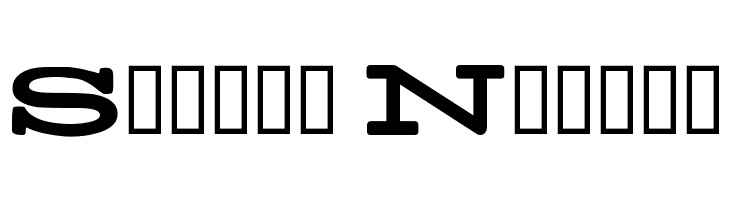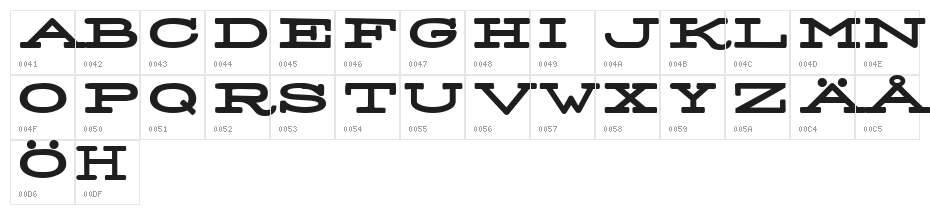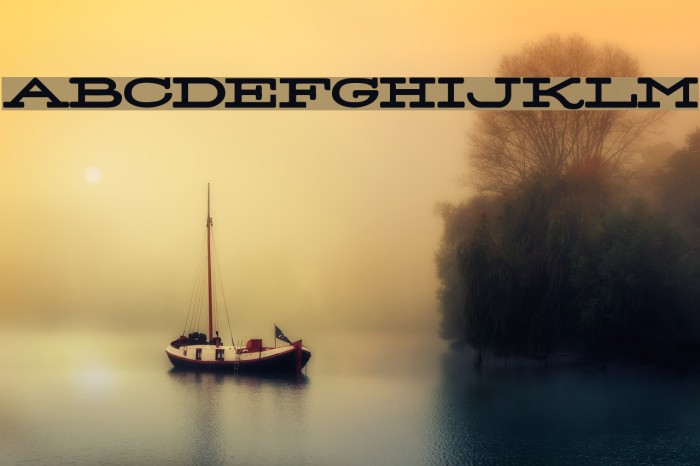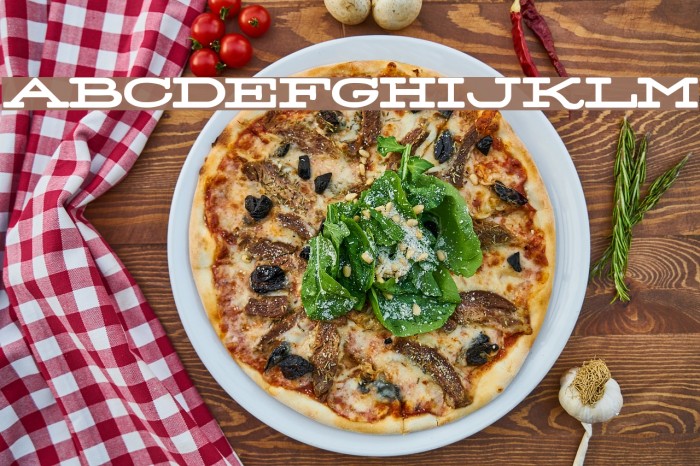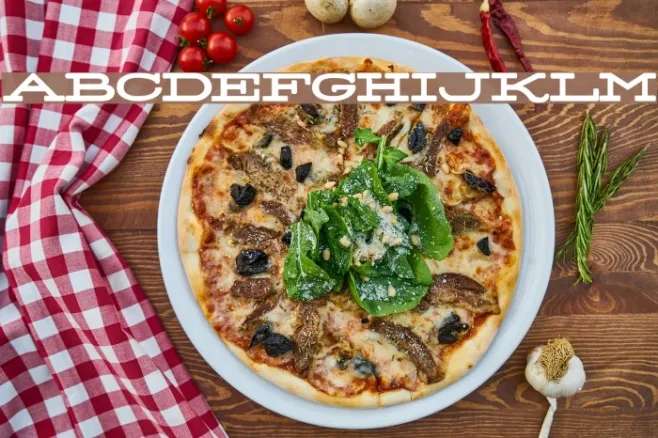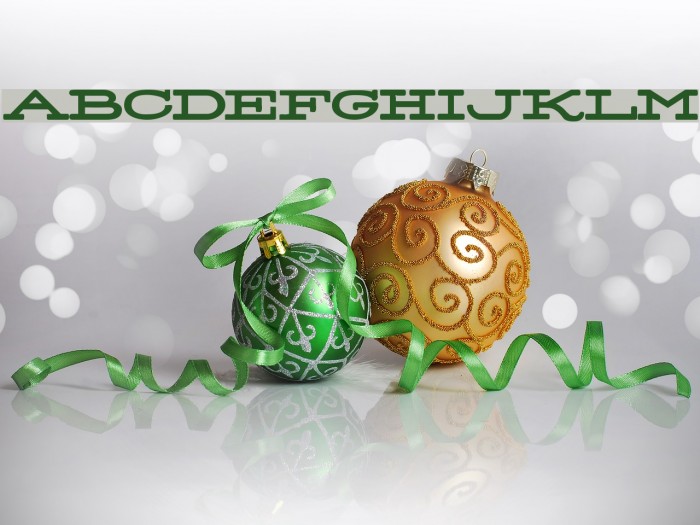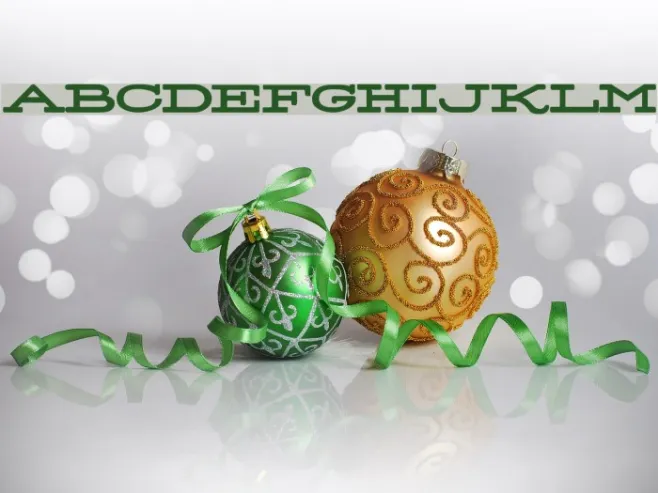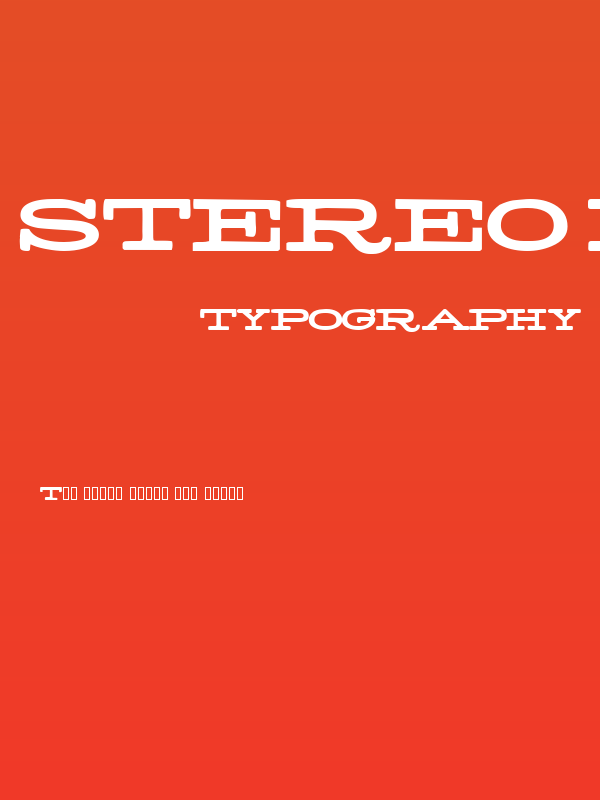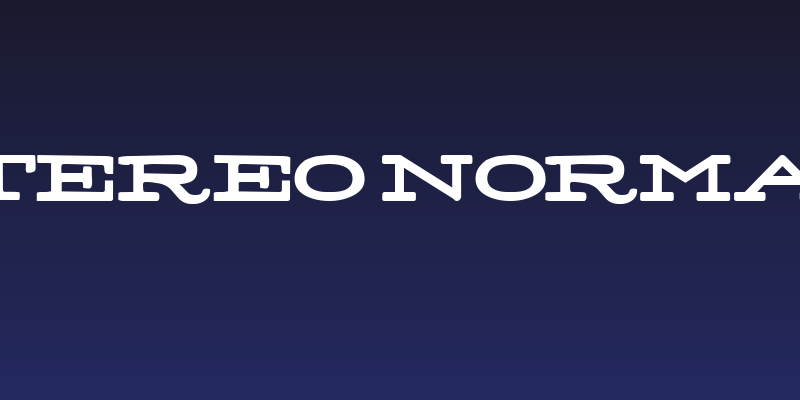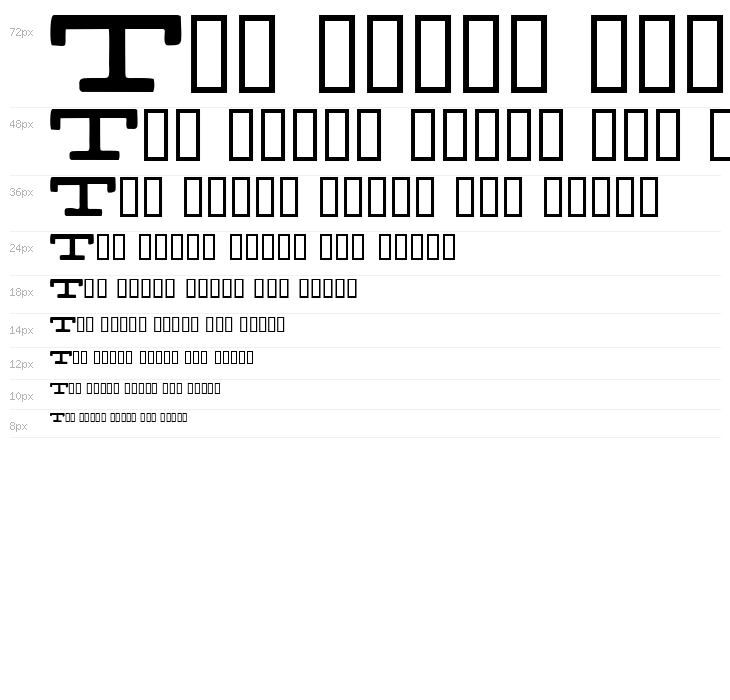
Stereo Normal Font
Stereo Normal Description
This font features a bold and distinctive design with strong geometric elements. The uppercase letters have a wide stance and are characterized by thick, consistent strokes that give them a robust appearance. The serifs are pronounced and add a touch of elegance to the overall design. The font's style is reminiscent of classic typefaces with a modern twist, making it suitable for a variety of applications. The characters are evenly spaced, ensuring readability and a clean look. This font is ideal for making a statement in headlines or logos, where its boldness can be fully appreciated.
| Proposed Projects | Ideal for branding, headlines, posters, and any design project that requires a strong, impactful typeface. |